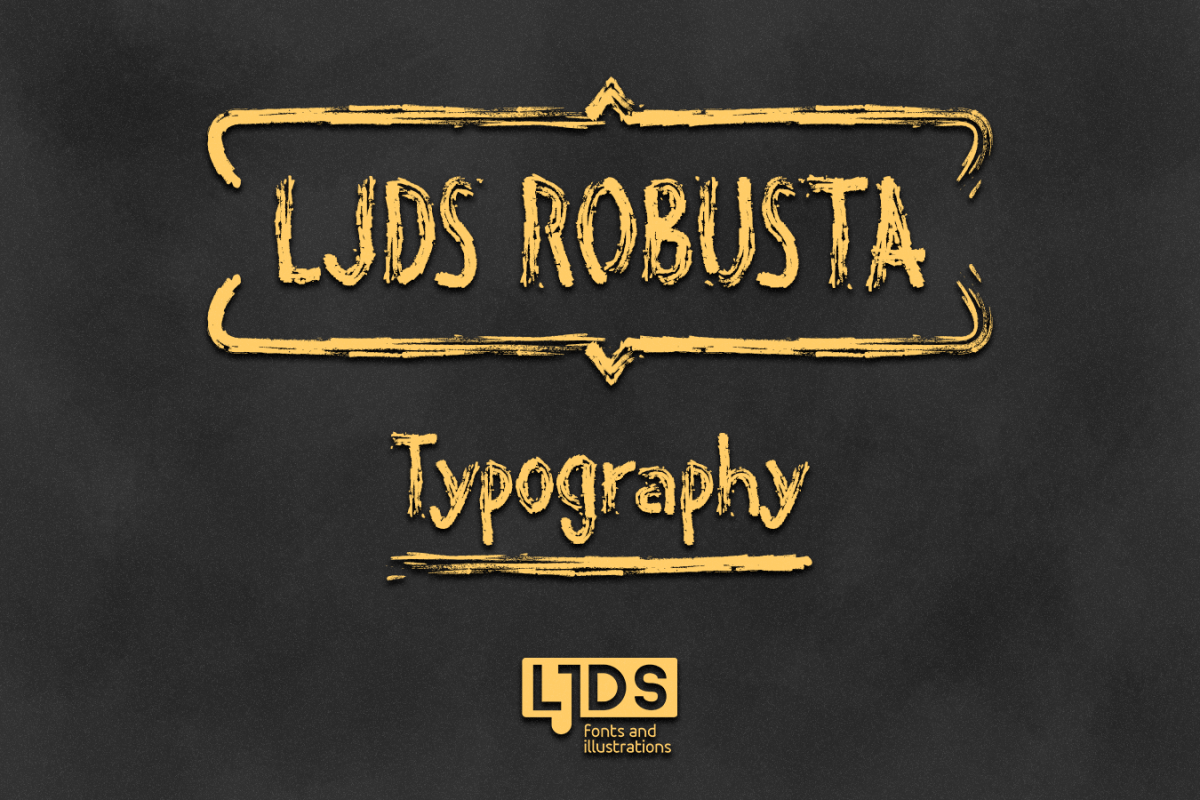
LJDS Robusta
LJDS Robusta now as a digital font!
Created to be part of any illustration, LJDS Robusta is a good choice to decorate, create a restore card or whatever you can think of.
¡LJDS Robusta ahora como fuente tipográfica digital!
Creada para formar parte en cualquier ilustración, LJDS Robusta es una buena opción bien sea para decorar, crear una carta de restauraante o lo que se te ocurra.